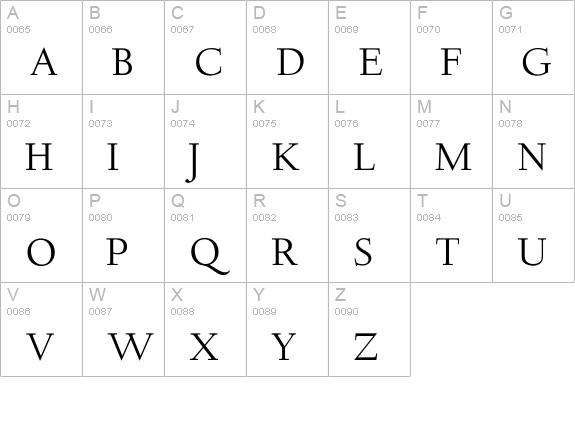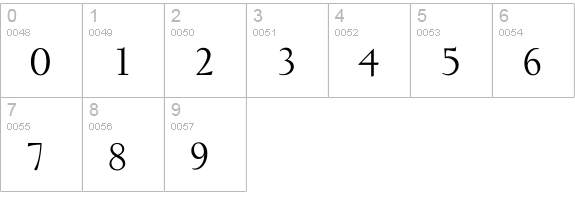
DeepdeneL Font Details
Introducing DeepdeneL font - a stunning display typeface that exudes elegance and sophistication. With its sleek lines and classic yet modern design, DeepdeneL is perfect for adding a touch of luxury to any project. This versatile font is ideal for branding, logos, invitations, and more. What's even better? DeepdeneL is available for free download at FontsMarket.com. Now you can easily elevate your designs without breaking the bank. Don't miss out on this opportunity to enhance your creative projects with the timeless beauty of DeepdeneL font. Download it now and let your creativity shine!